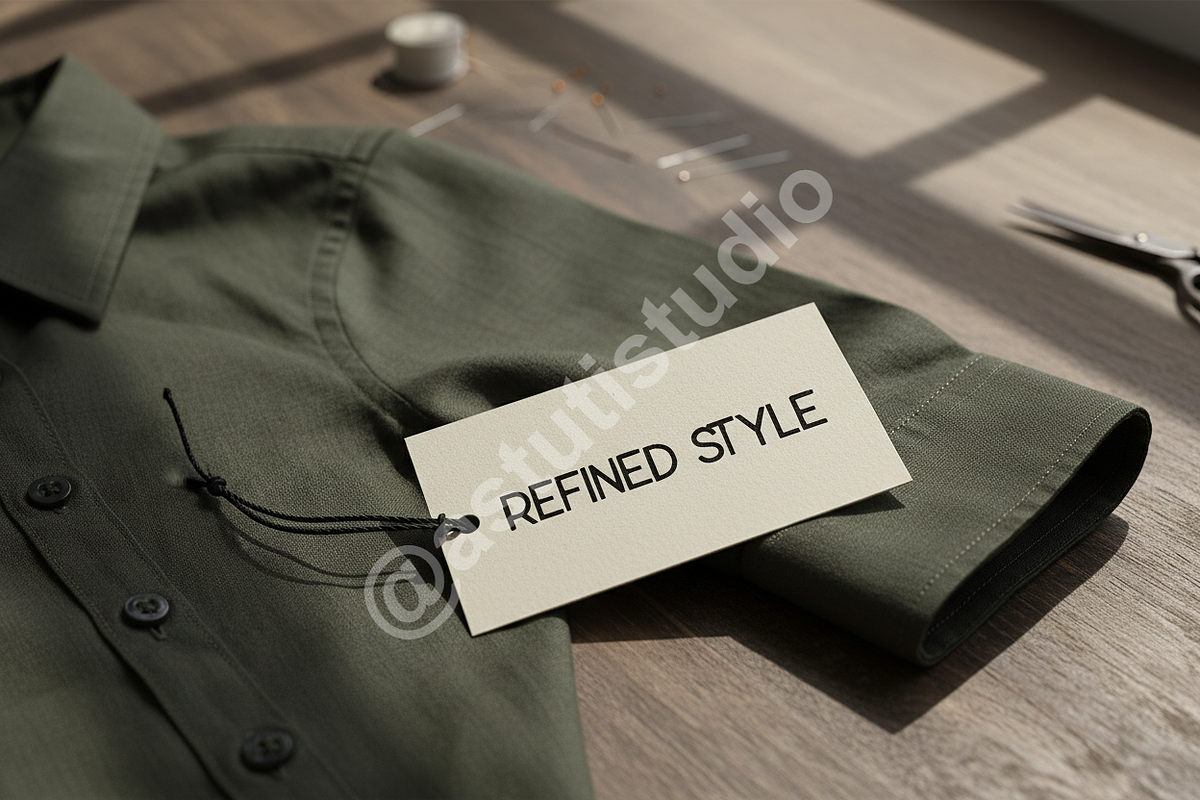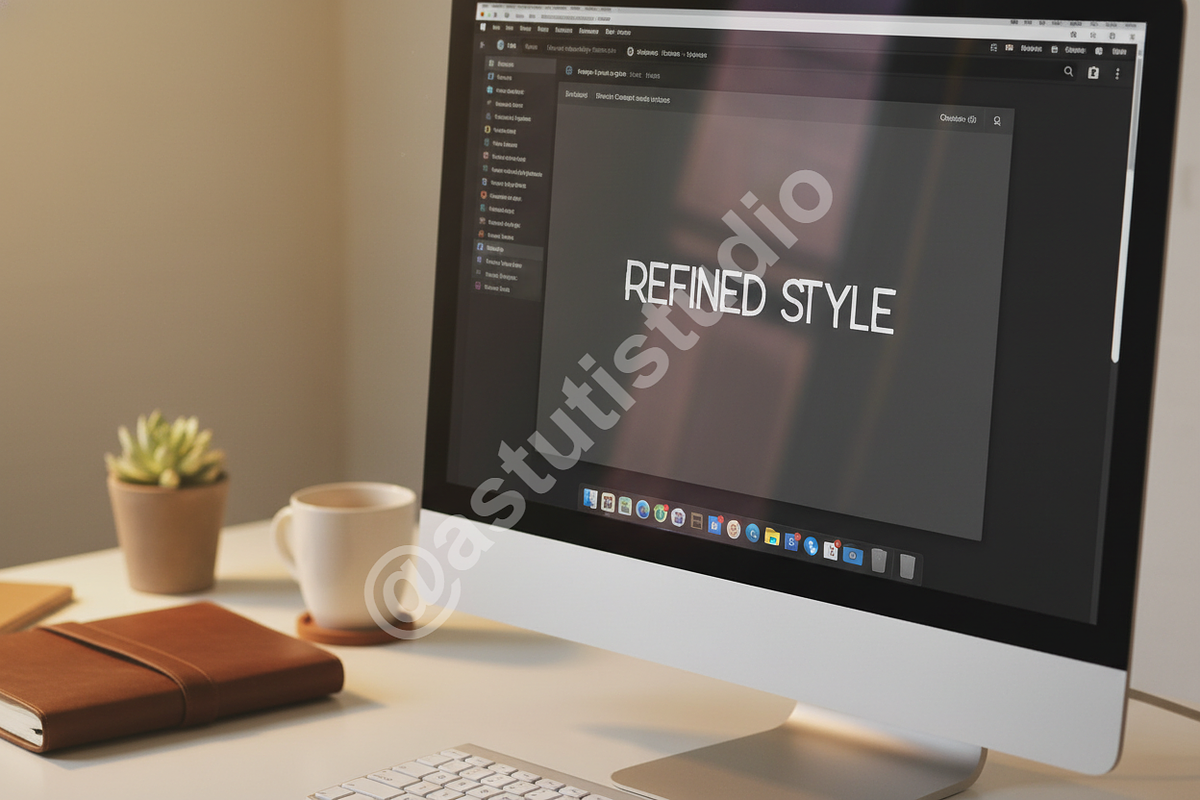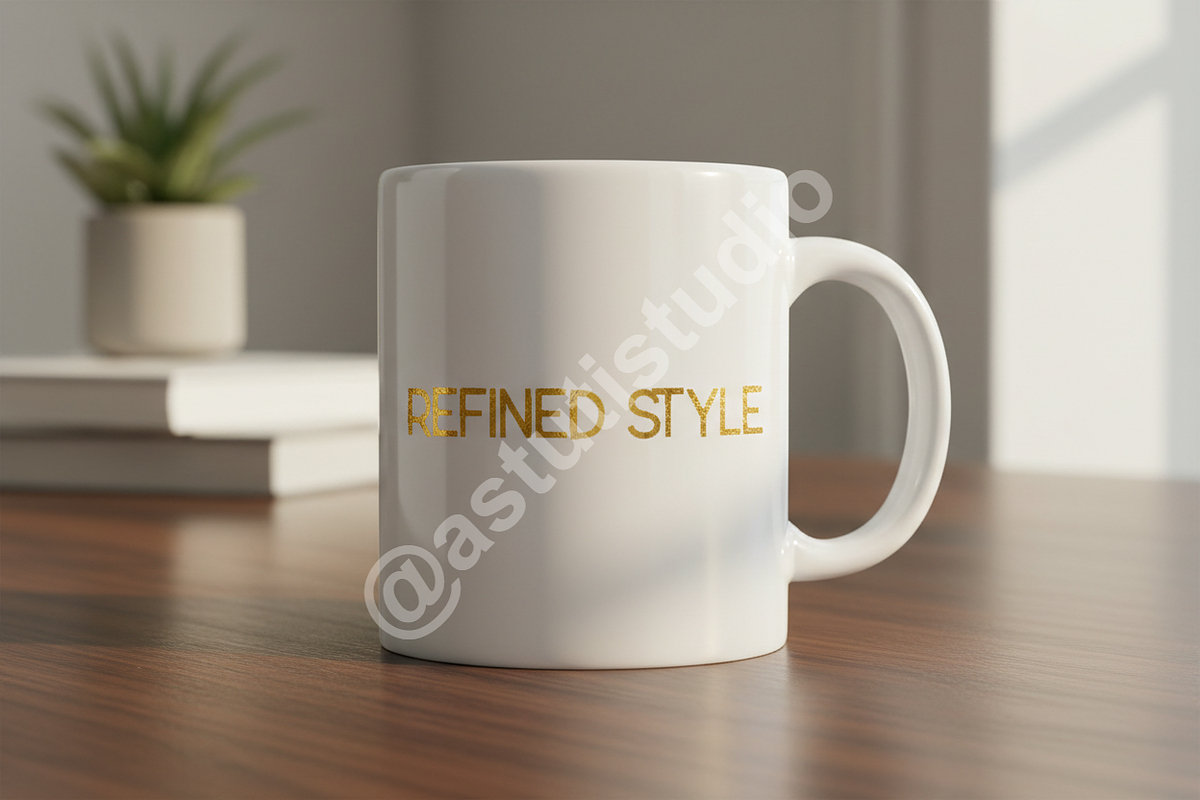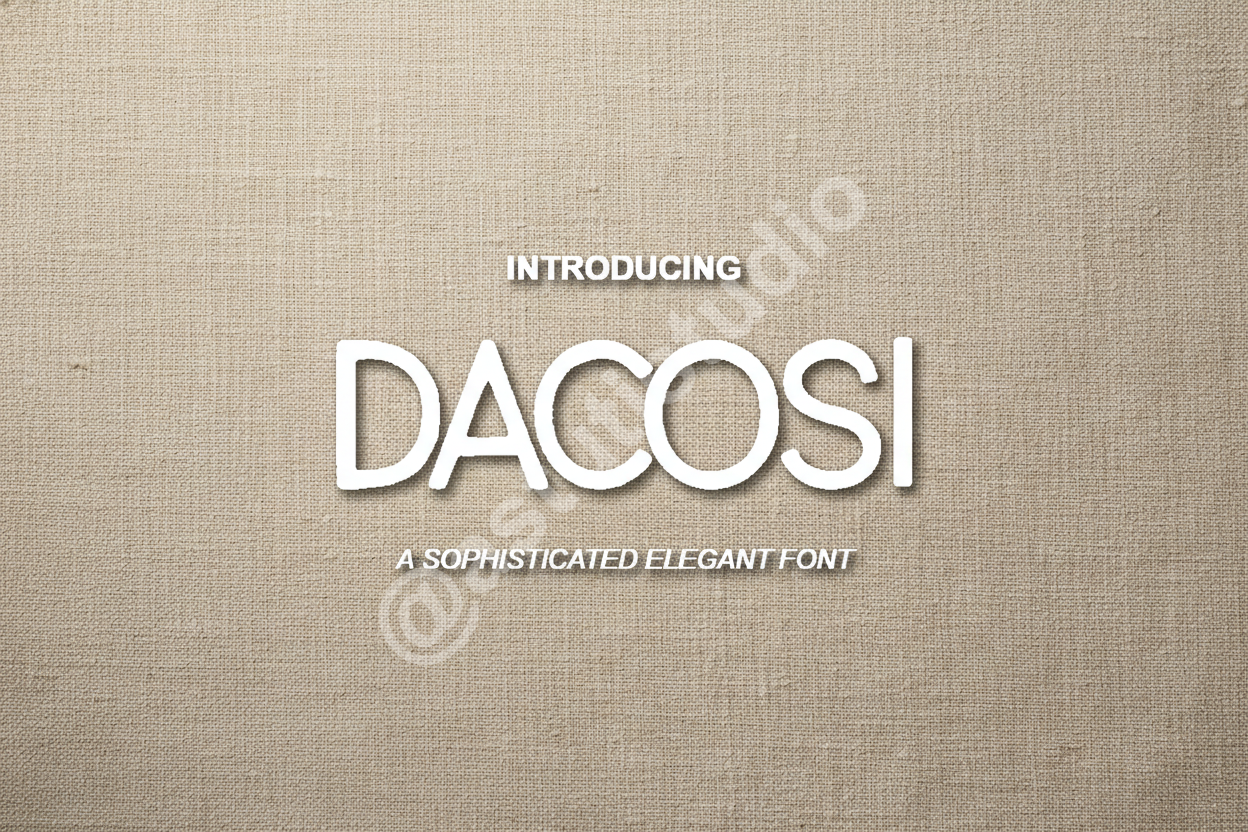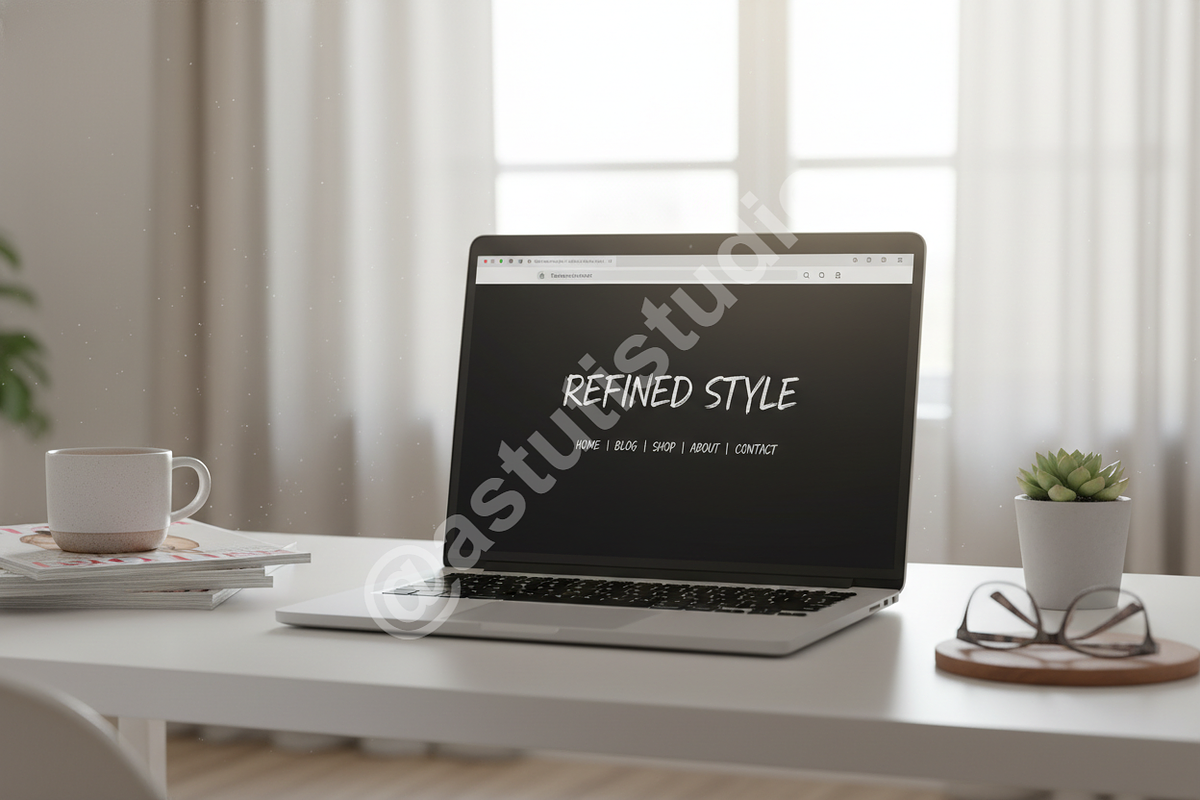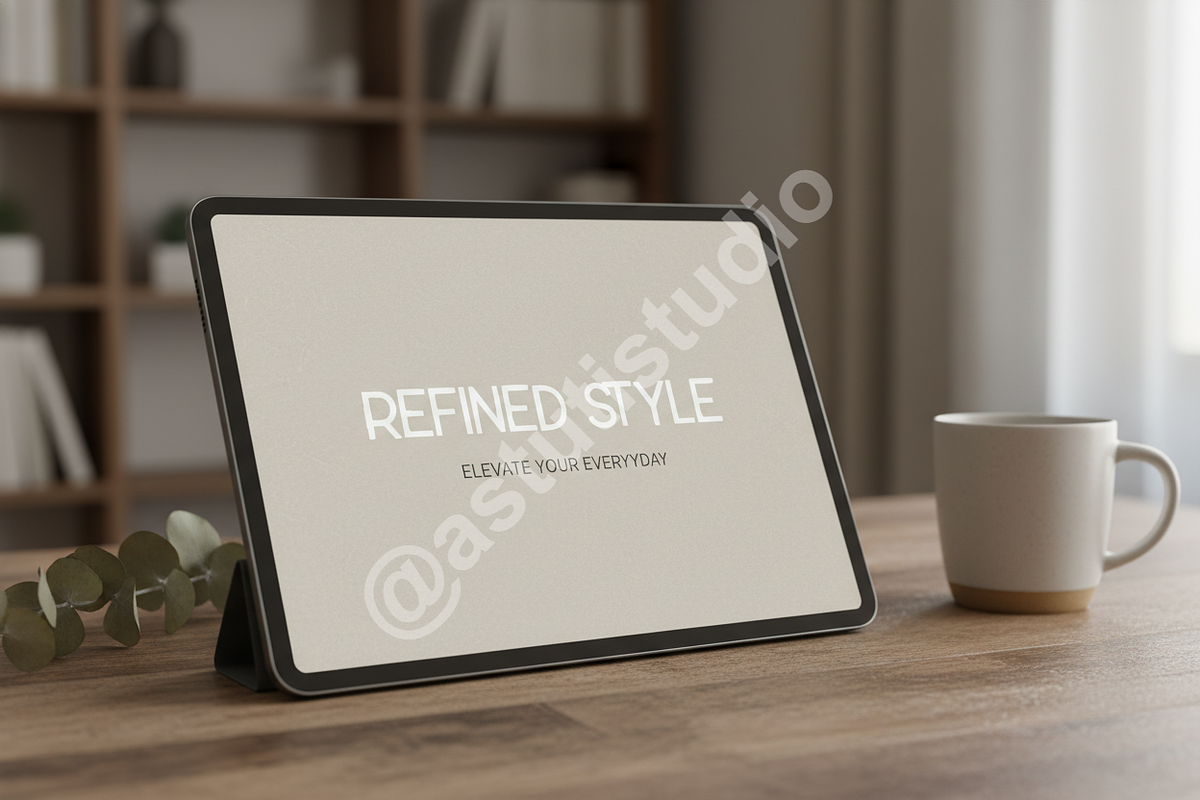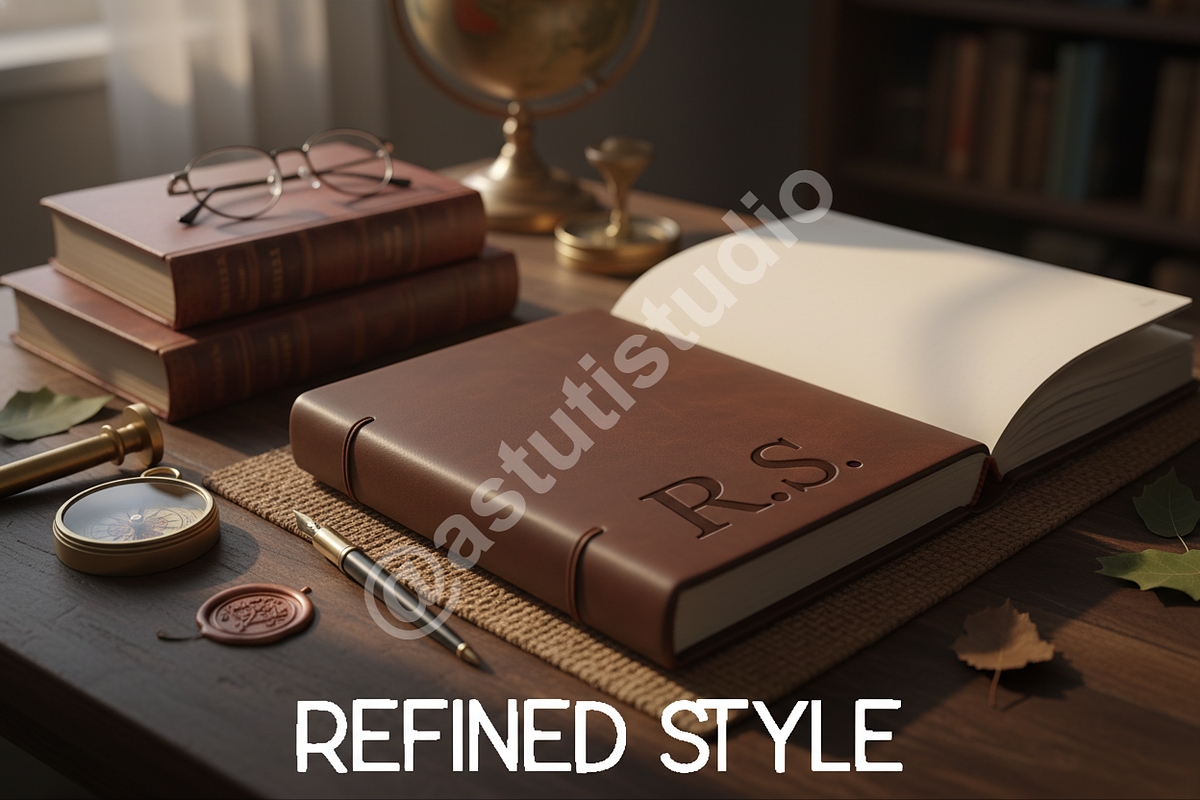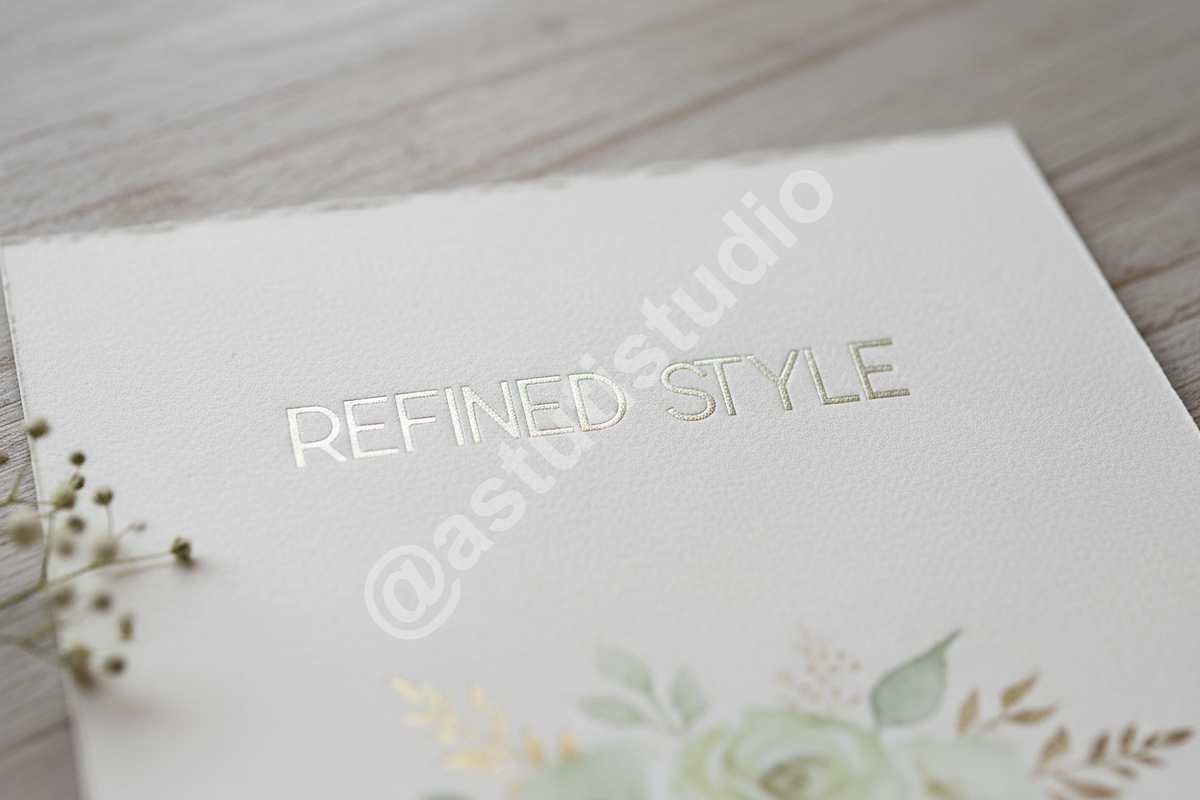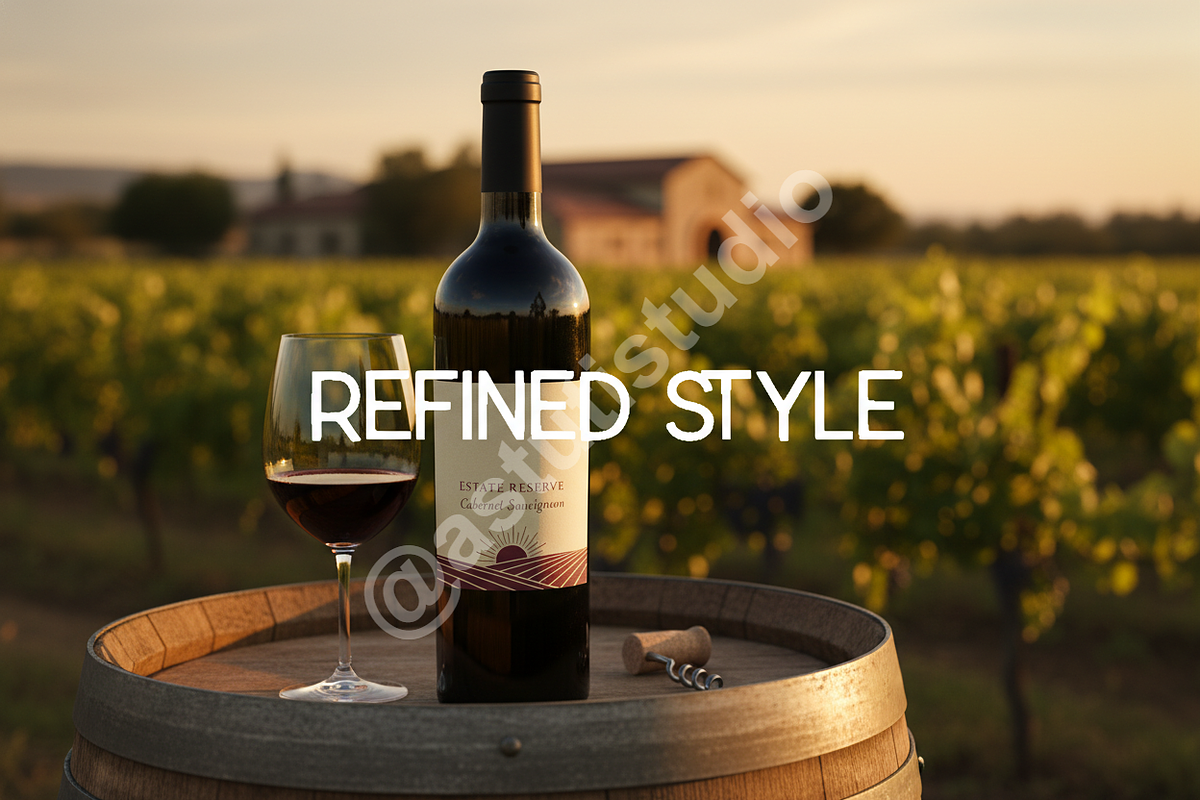
Dacosi - Elegant Serif Font for Luxu
Introducing Dacosi, a sophisticated serif typeface meticulously crafted to embody elegance and luxury. Designed for the discerning creative, Dacosi offers a premium aesthetic perfect for elevating your luxury branding, captivating editorial designs, and striking social media presence. Its refined curves and balanced proportions exude an air of exclusivity, making every design truly exceptional.
Key Features: • Luxurious Serif Design: A timeless and elegant letterform structure that commands attention. • Versatile Application: Ideal for high-end logos, magazine layouts, fashion labels, wedding invitations, and sophisticated marketing materials. • Extensive Character Set: Includes uppercase and lowercase letters, numbers, punctuation, and a wide range of multilingual characters. • OpenType Features: Access beautiful ligatures and alternate glyphs (where applicable) to add unique flair and customization. • PUA Encoded: Easily access all special characters and glyphs without the need for additional design software.